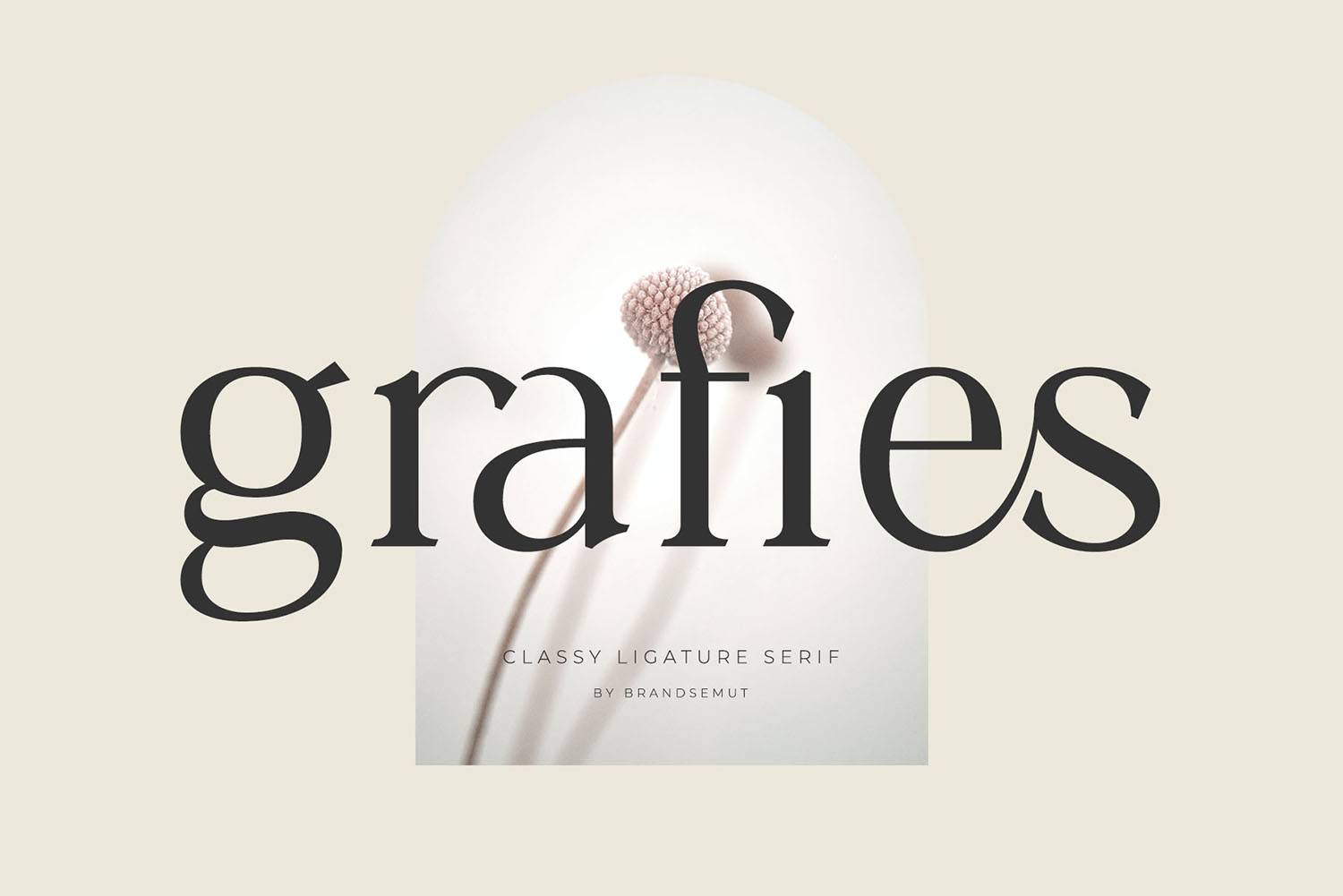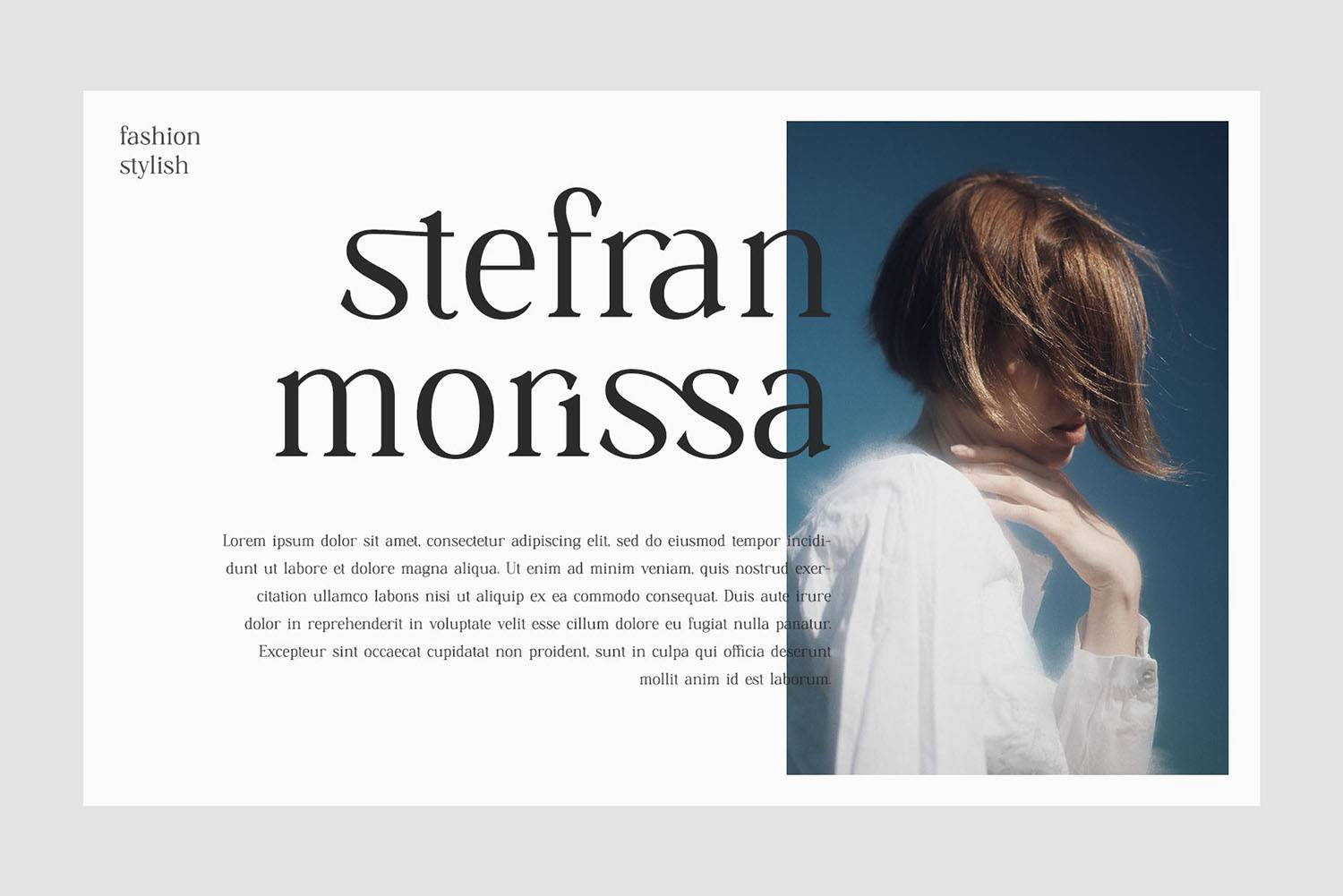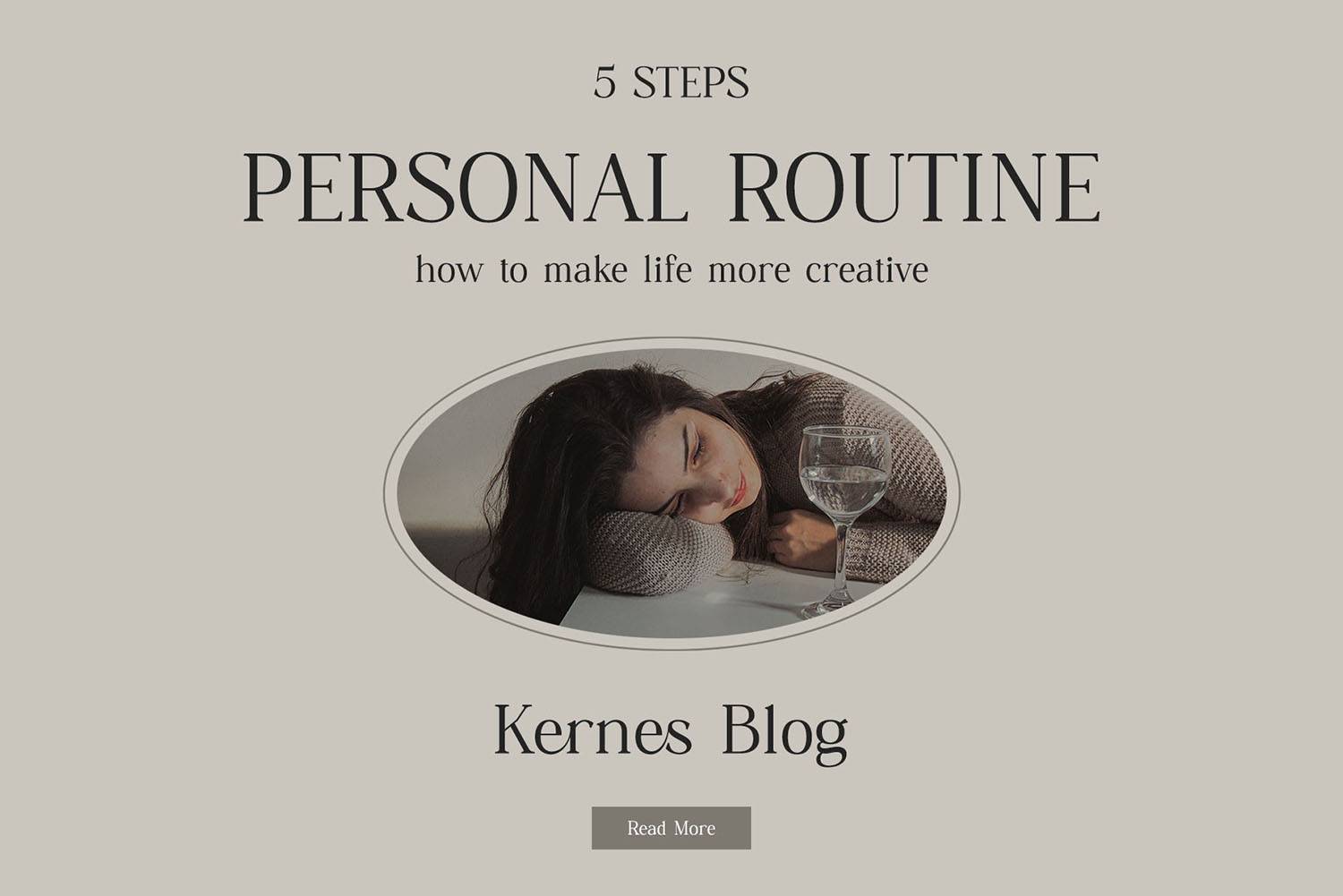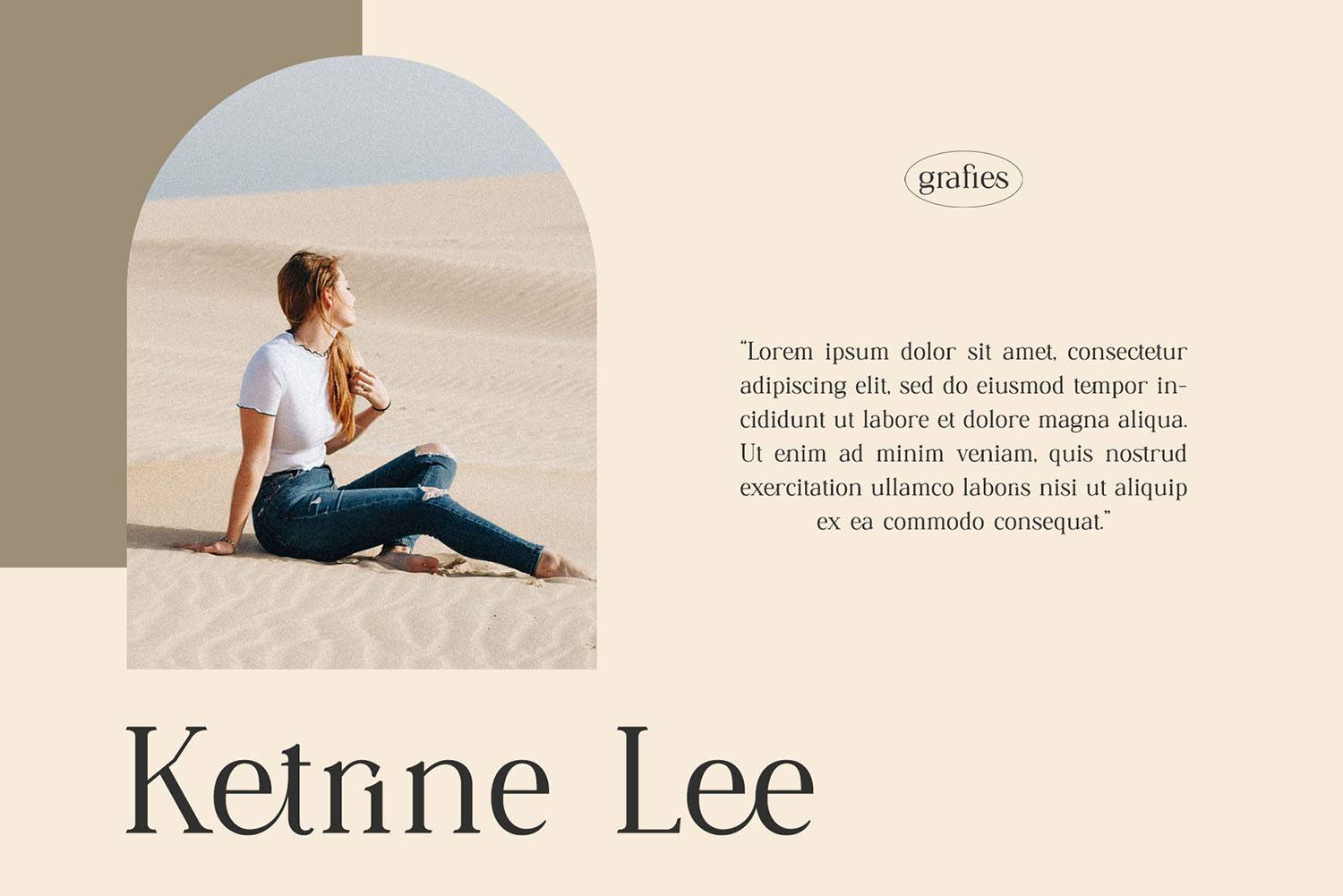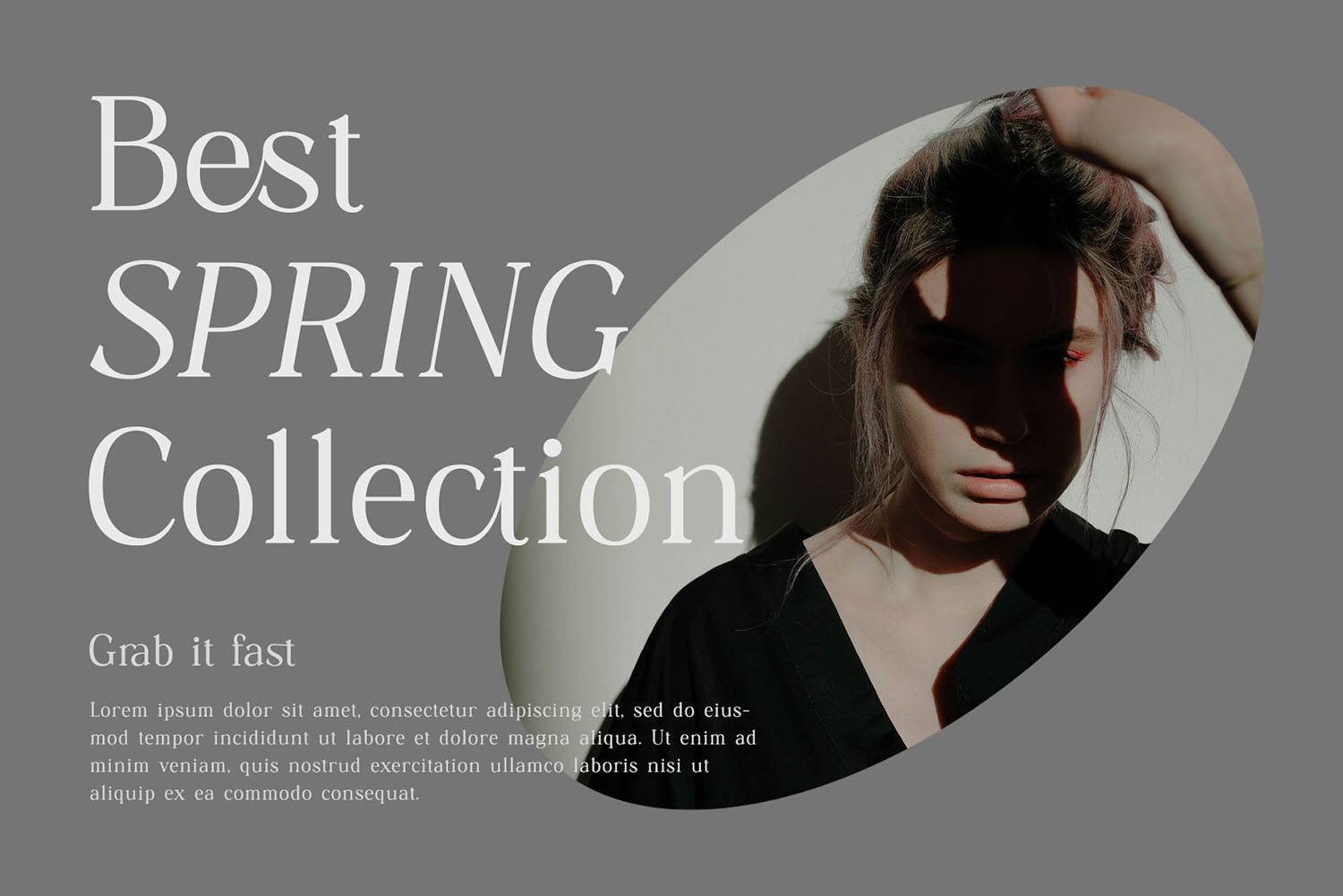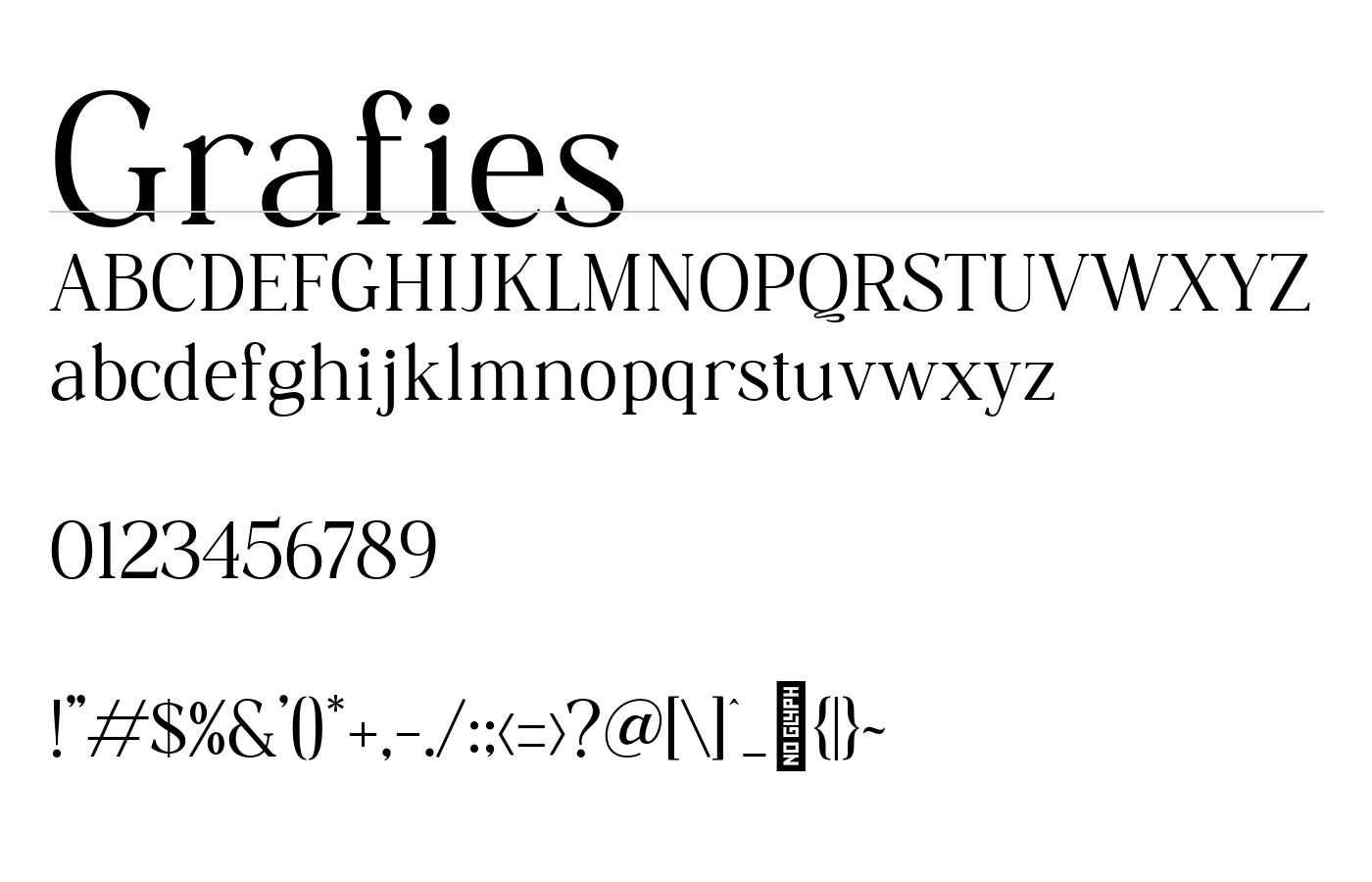
Grafies is an elegant serif font with a refined, high-contrast stroke that blends classic sophistication with modern clarity. Its delicate, bracketed serifs and graceful letterforms convey a timeless, professional feel, making it ideal for editorial design, luxury branding, and high-end print projects where an air of refinement is desired. This font works beautifully in headlines and display text, offering readability with a touch of classic charm.
Grafies Font
About Grafies Font
| Font family | Grafies Font |
| Designer | Ahmad Sidiq |